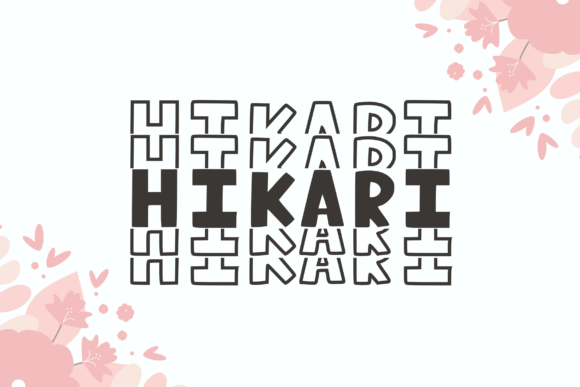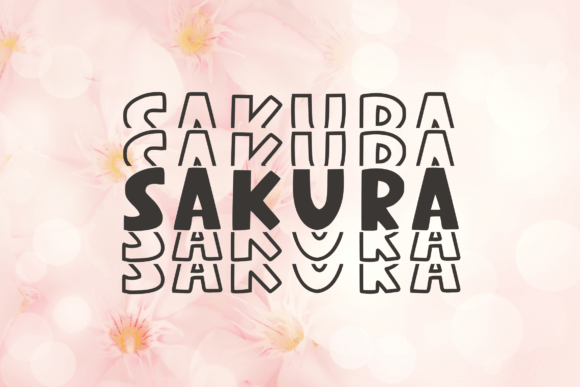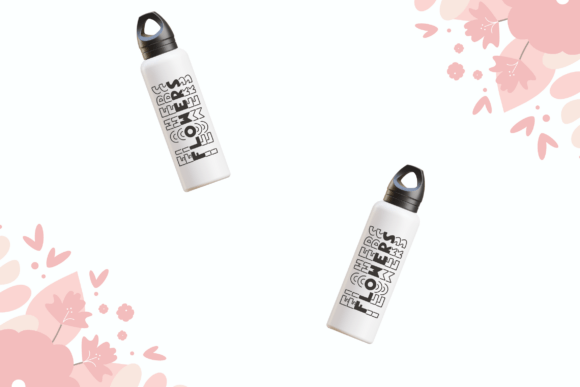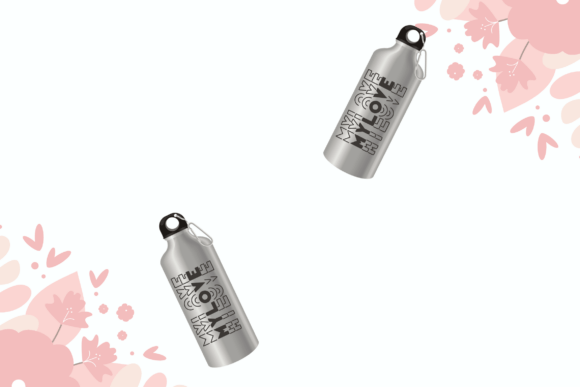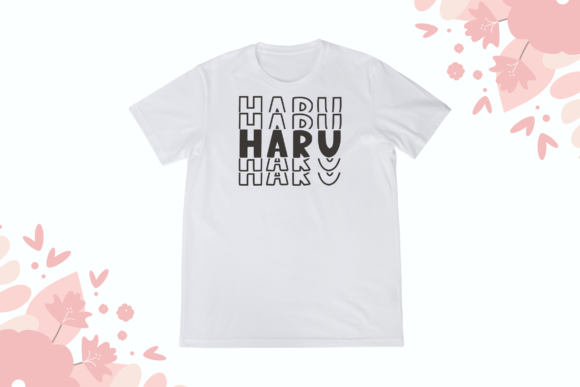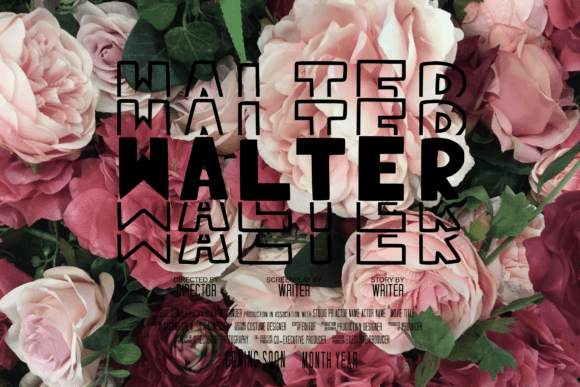
Introduction to Novox Stacked Font
Imagine you’re working on a creative project, and you need a font that screams ‘high-quality’ and ‘attention-grabbing’. You’re scrolling through design resources, searching for the perfect font to elevate your logo, poster, or signage. Suddenly, you stumble upon the Novox Stacked Font – a game-changer in the world of typography. This all-caps display font is crafted for maximum impact, with a compact and vertically aligned design that exudes modernity and order.
As a designer, you know how valuable a powerful font can be in taking your creative project to the next level. With its free download option and transparent background, the Novox Stacked Font is an invaluable design resource that’s sure to make your work stand out. Whether you’re working on sports merchandise, urban branding, or any other creative project, this font is sure to deliver.
Key Features of Novox Stacked Font
- High-quality font design suitable for creative projects
- Stacked font style with transparent background for versatile usage
- Unique stacked design element, perfect for adding a creative touch to your project
Honest Review: Novox Stacked Font
As a designer, I’m always on the lookout for high-quality fonts to add some flair to my creative projects. I recently stumbled upon the Novox Stacked Font, and I’m excited to share my thoughts on it.
First off, the font is a free download, which is a major plus in my book. It’s always great to have access to a wide range of design resources without breaking the bank. The Novox Stacked Font is a beautifully designed font that features a unique stacked structure, making it perfect for use in logos, typography, and other design elements.
- ✨ Unique stacked structure adds a touch of elegance to any design
- ⚠️ Limited font sizes available, which may make it less versatile for some designers
- ⚠️ Transparent background can sometimes be tricky to work with, especially for beginners
Overall, I’m really impressed with the Novox Stacked Font. It’s a high-quality design resource that’s perfect for designers looking to add some creativity to their projects. While it may have a few limitations, the benefits far outweigh the drawbacks.
Tips for Getting the Most Out of Novox Stacked Font
Experiment with different font sizes and colors to achieve a unique look. Combine the Novox Stacked Font with other design elements, such as images and graphics, to create a visually appealing design. Use this font in a variety of creative projects, from social media graphics to presentations and documents.
The Novox Stacked Font is ideal for a range of creative projects, including: social media graphics, blog posts, presentations, documents, and more. Its high-quality design and transparent background make it a great choice for any project that requires a clean and minimalist look.
Does the Novox Stacked Font have a transparent background?
No, the Novox Stacked Font does not have a transparent background. It is a solid-colored font designed for use on various backgrounds. However, you can use image editing software to create a transparent version of the font if needed for your specific design project.